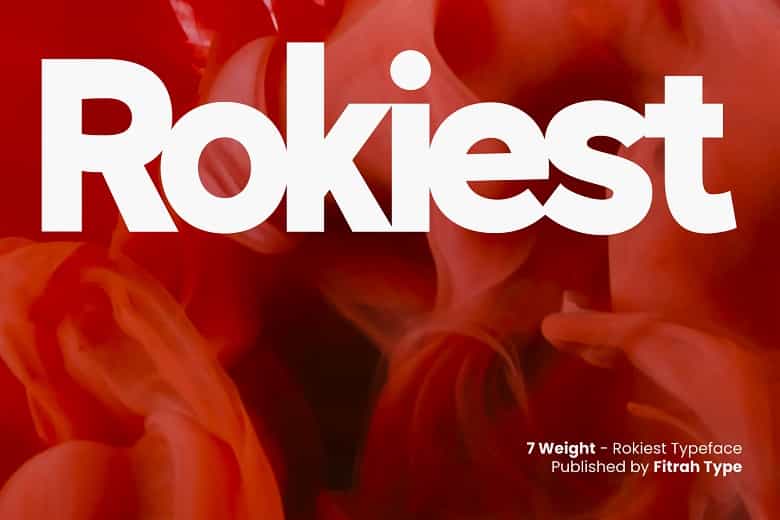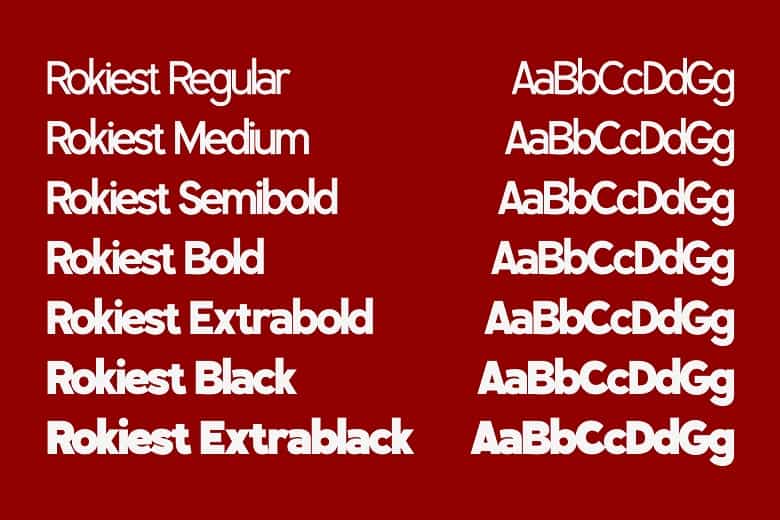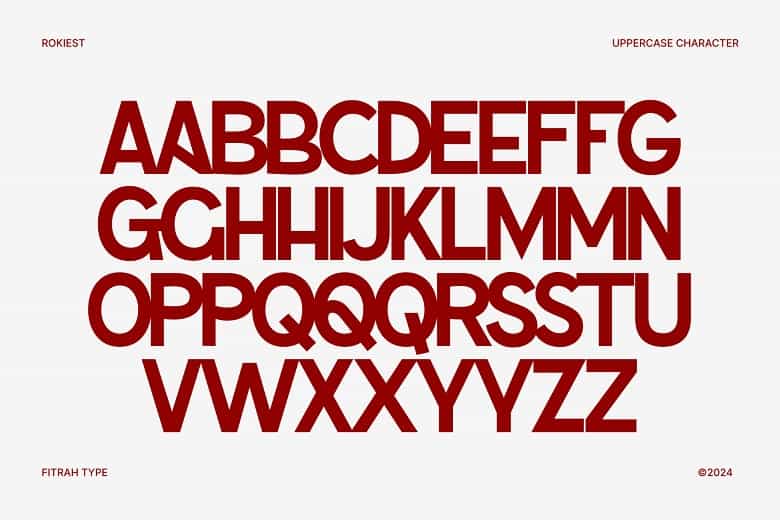
Rokiest is another type of font that is in the sans serif font family with 7 styles. Rokiest was made in simplicity and it can be also described as minimalistic and elegant. Thus, the whole typography has been developed for the large sizes.